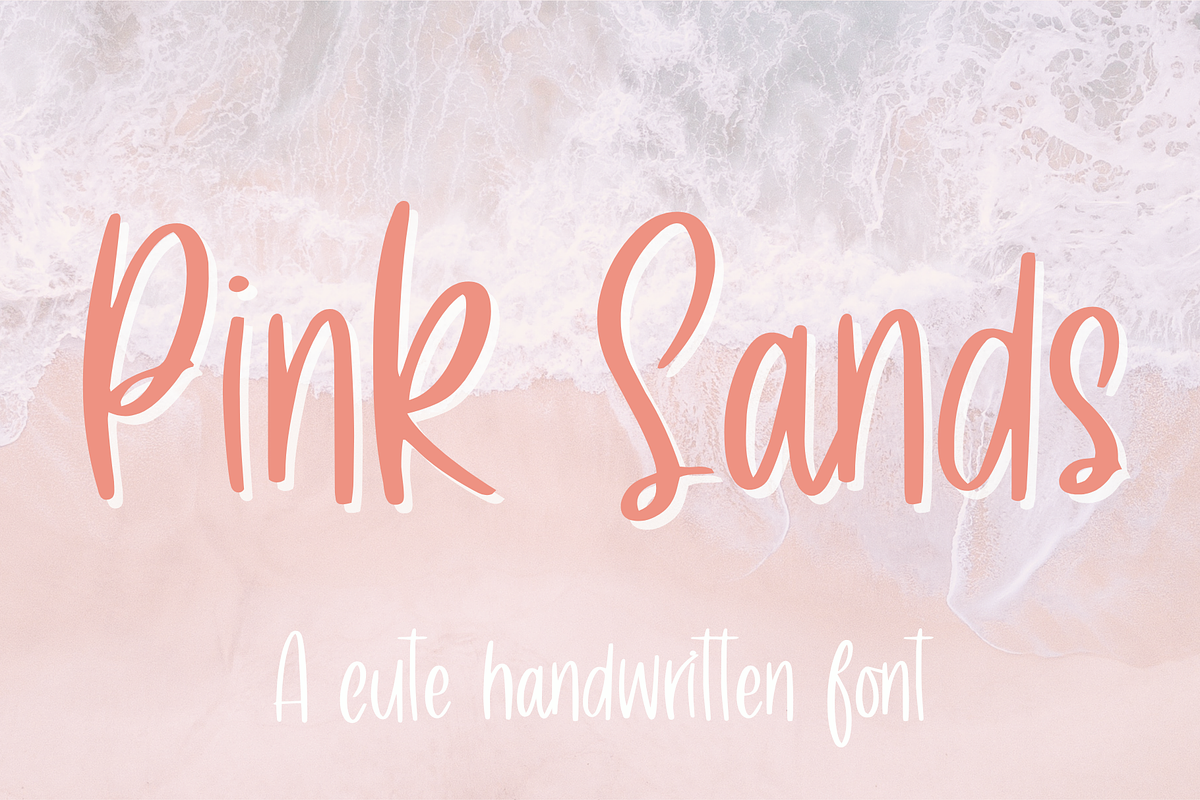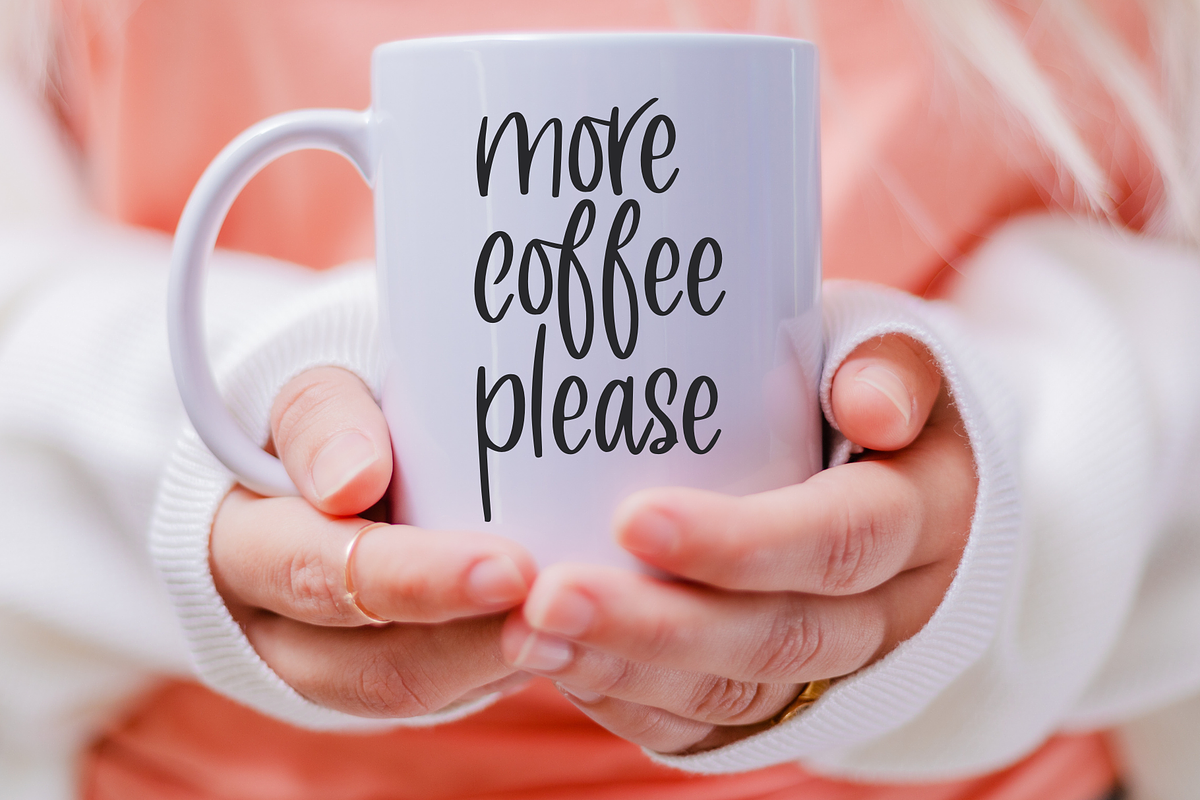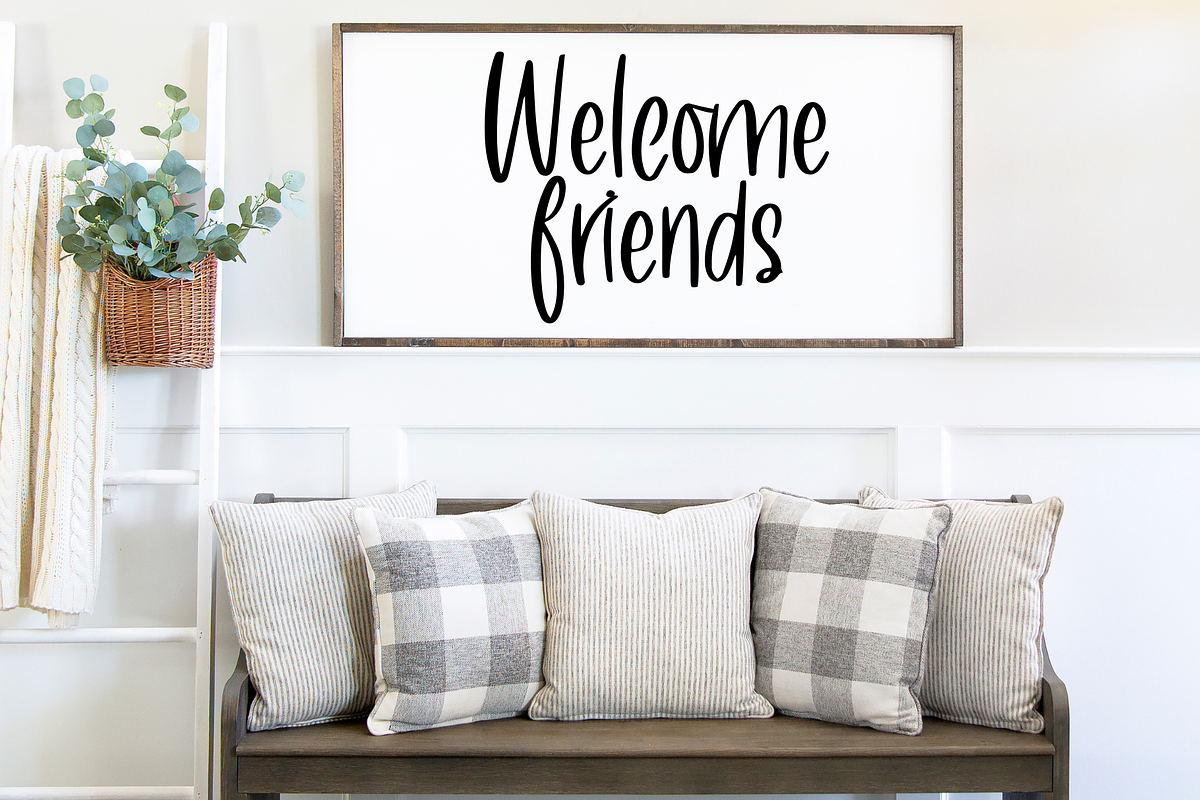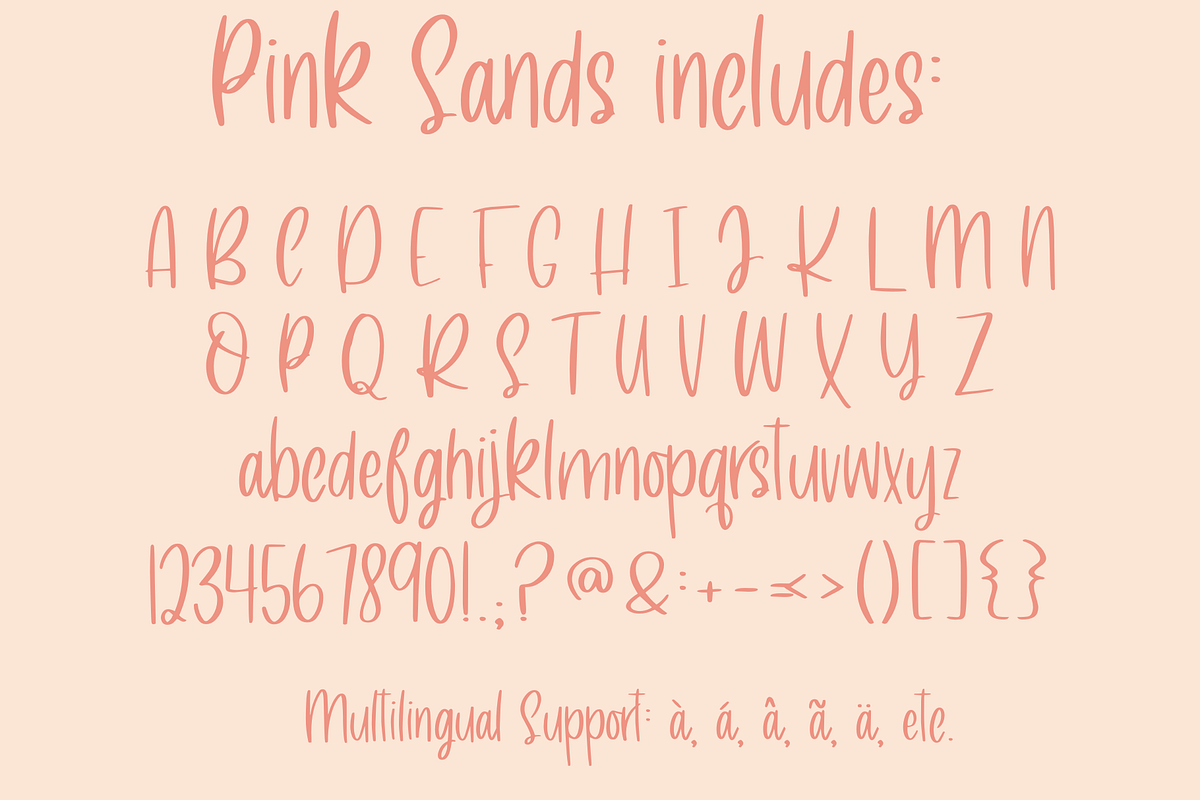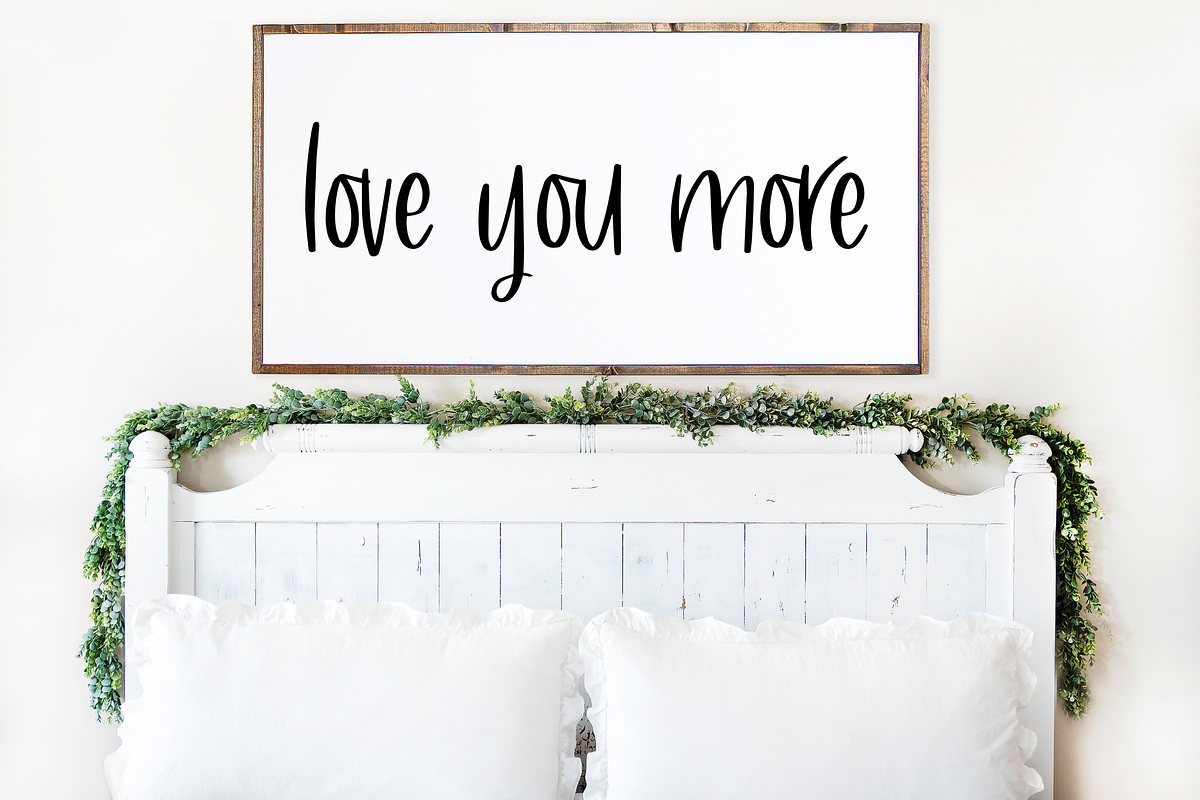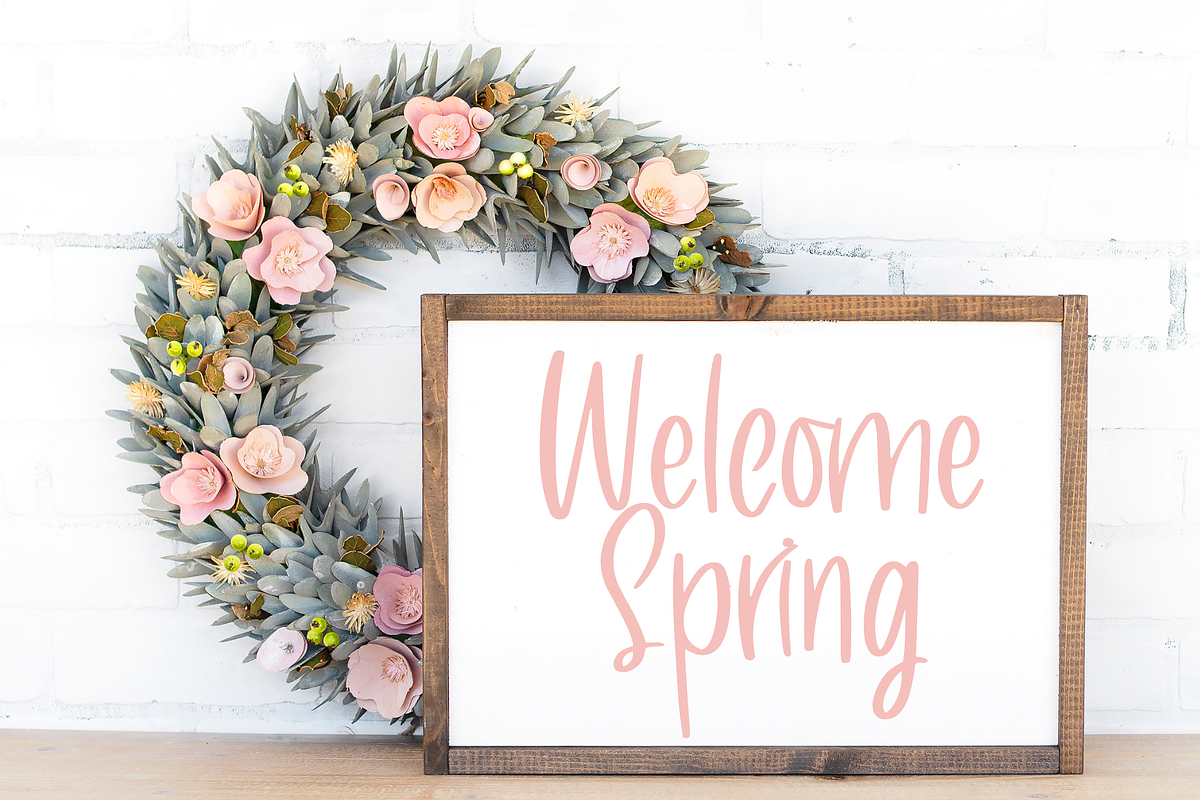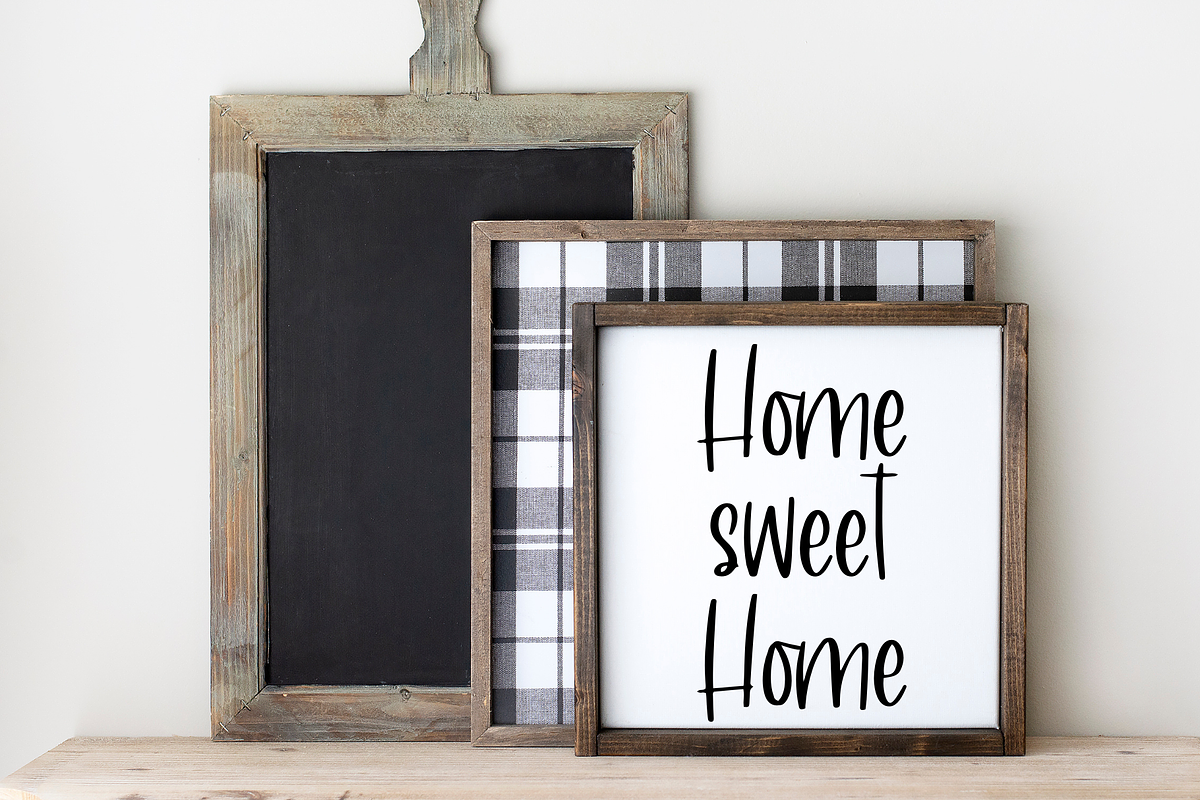
Pink Sands, A Cute Handwritten Font
Introducing Pink Sands, our cute handwritten script font for Cricut & more, perfect for all your creative projects! Whether you're a Cricut enthusiast or simply looking for a charming cursive font, this handwriting font brings a delightful touch to invitations, greeting cards, and personalized crafts. Our script font is compatible with Cricut SVGs, Goodnotes, Procreate, and many other programs. Transform your designs into stunning works of art with our versatile Cute Script Font, the ultimate choice for anyone seeking a captivating and expressive typeface for their projects.